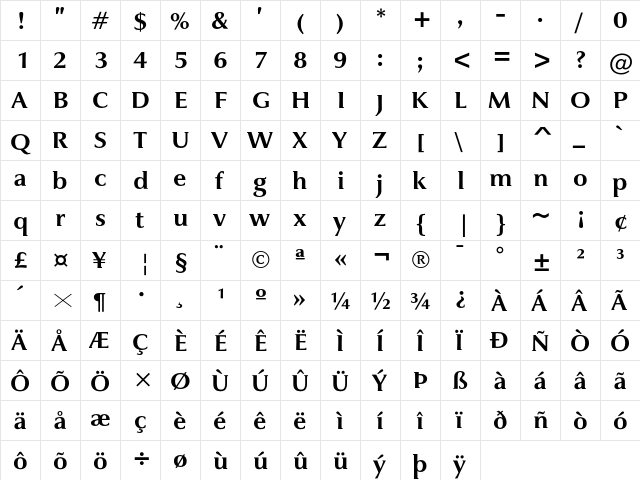
JaguarJC Bold Font Preview
JaguarJC Bold
Design Context for JaguarJC Typeface
JaguarJC is a composed and adaptable typeface that performs quietly and consistently across a wide range of design contexts. Its bold stroke weight gives it real presence on the page.
Pro Tip: Use JaguarJC in both headline and body roles to test its range before committing to a single application.